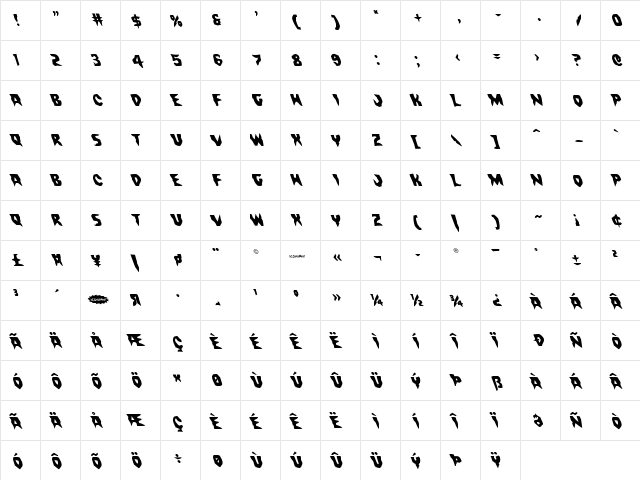
Count Suckula Leftalic Italic
Design Context for Count Suckula Leftalic Typeface
Count Suckula Leftalic is a composed and adaptable typeface that performs quietly and consistently across a wide range of design contexts. The slanted form adds forward momentum and visual energy.